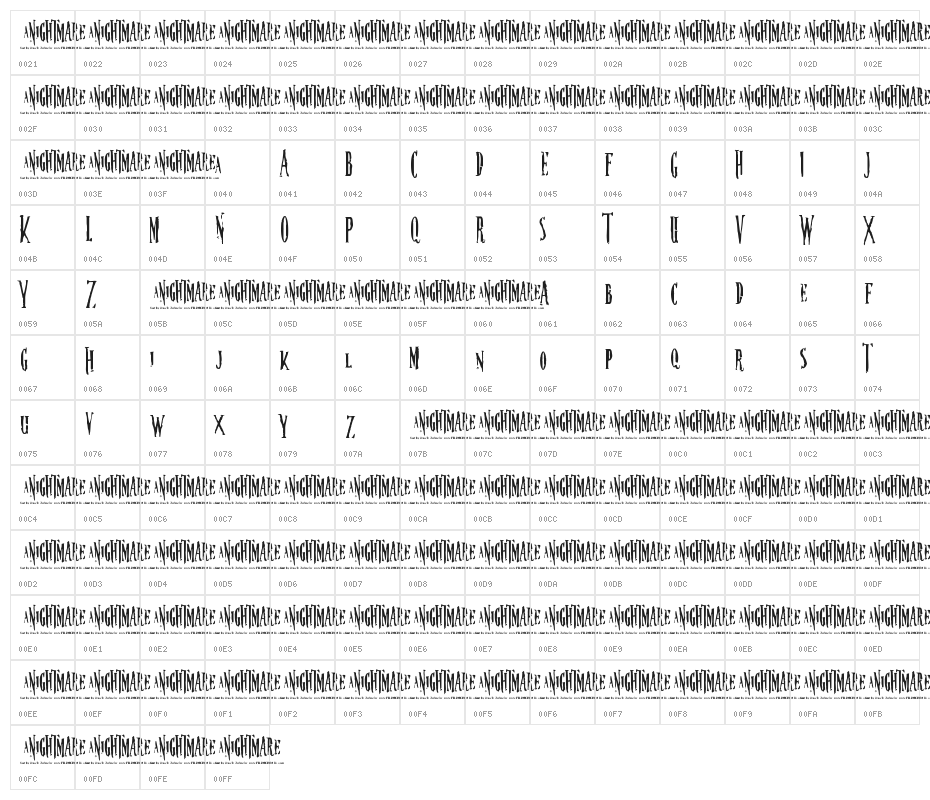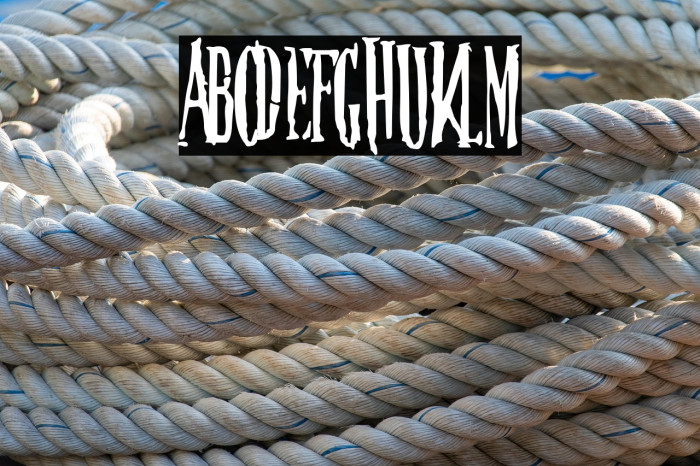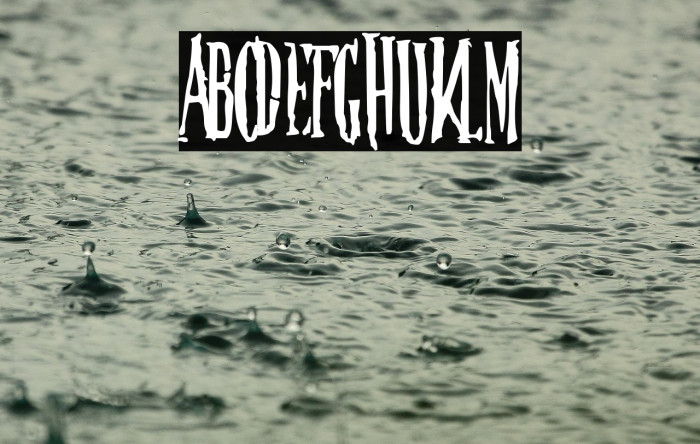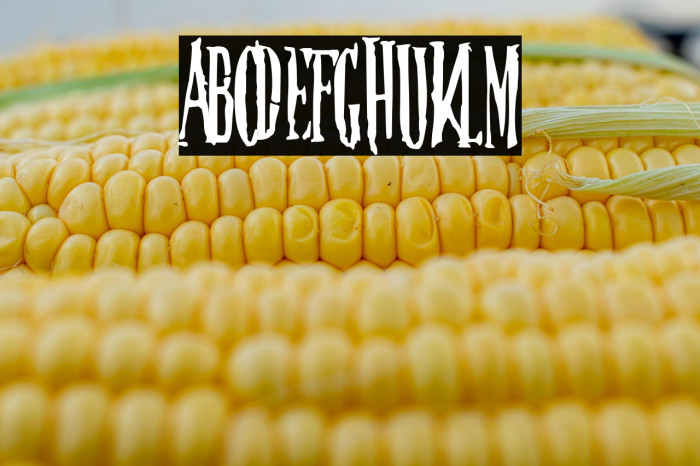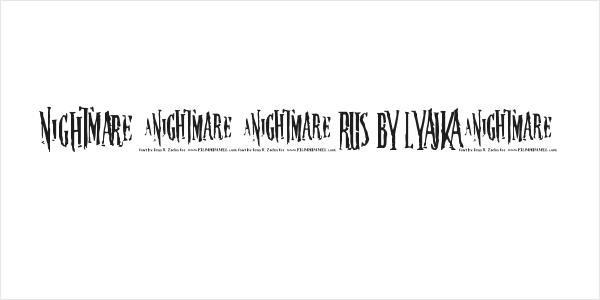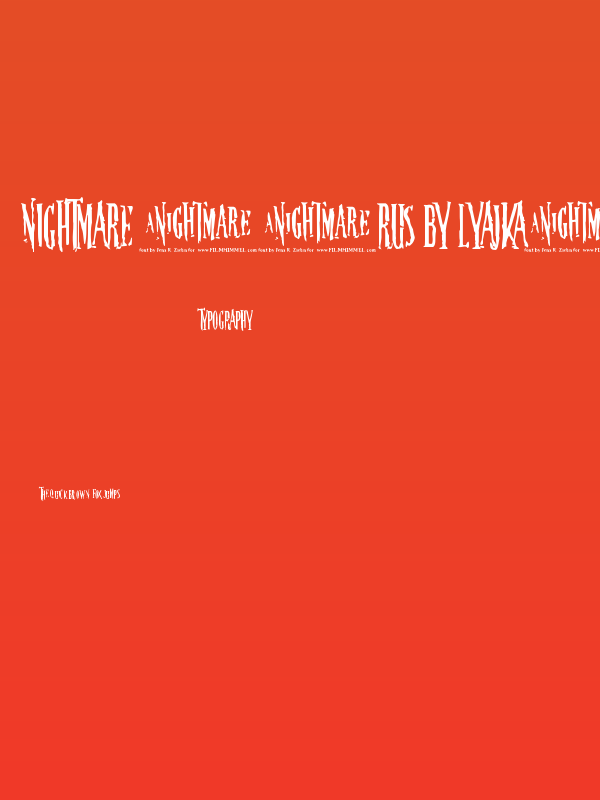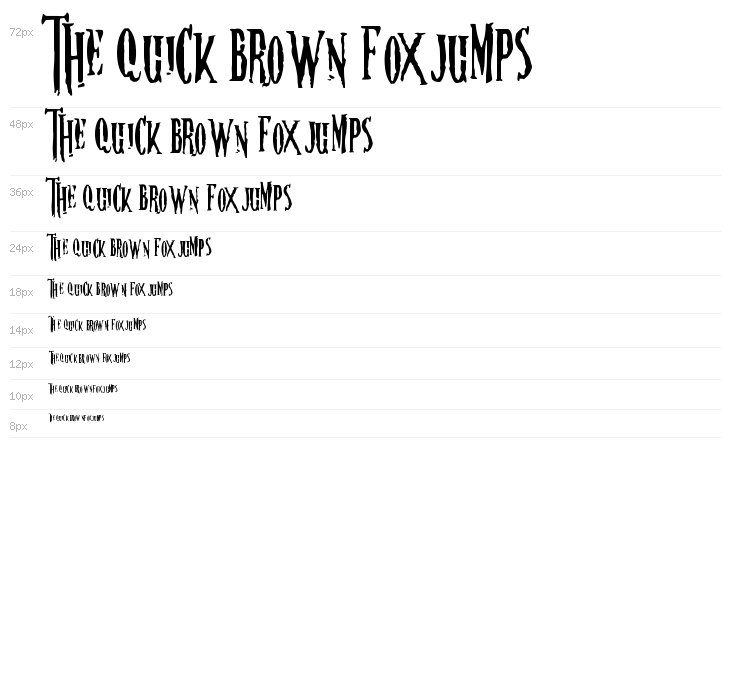
Nightmare 5(RUS BY LYAJKA) Font
Nightmare 5(RUS BY LYAJKA) Description
This font features a dramatic and eerie style, characterized by its jagged and irregular edges that evoke a sense of horror and mystery. The uppercase and lowercase letters maintain a consistent height, with exaggerated vertical strokes that create a sense of tension and unease. The overall appearance is reminiscent of classic horror movie posters or Halloween-themed designs. The font's unique style makes it stand out, with each character appearing as if it has been scratched or carved, adding to its unsettling aesthetic. The spacing between characters is relatively tight, enhancing the compact and intense look of the text.
| Proposed Projects | Ideal for Halloween invitations, horror movie posters, themed event flyers, and spooky merchandise designs. |